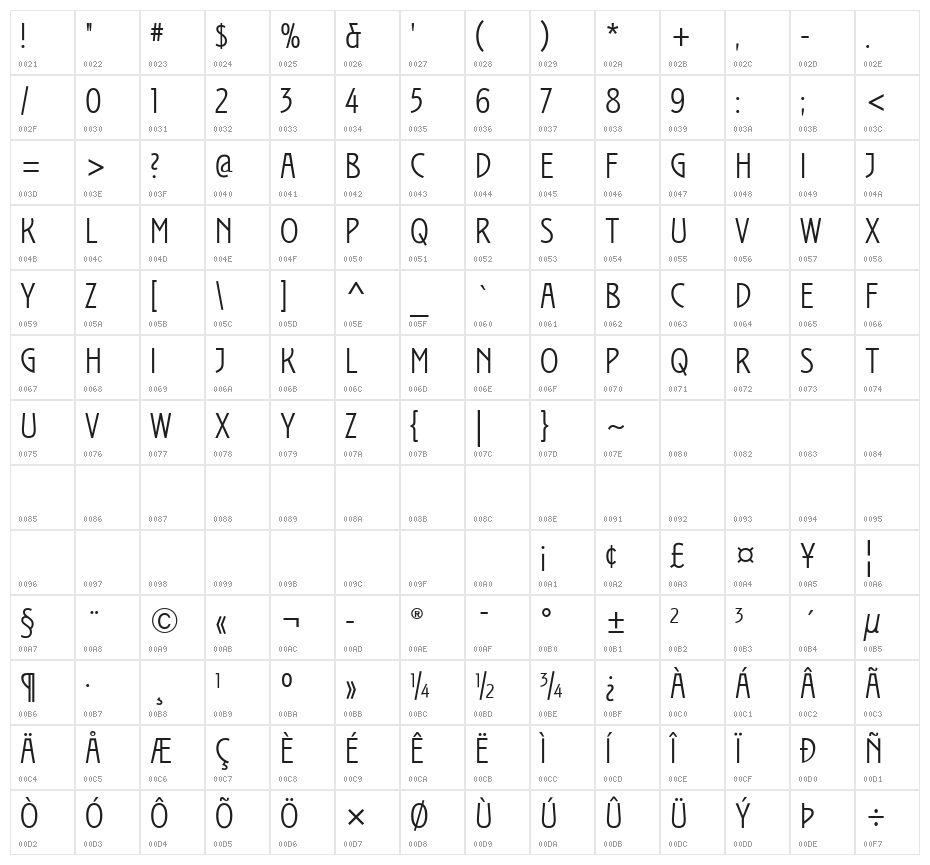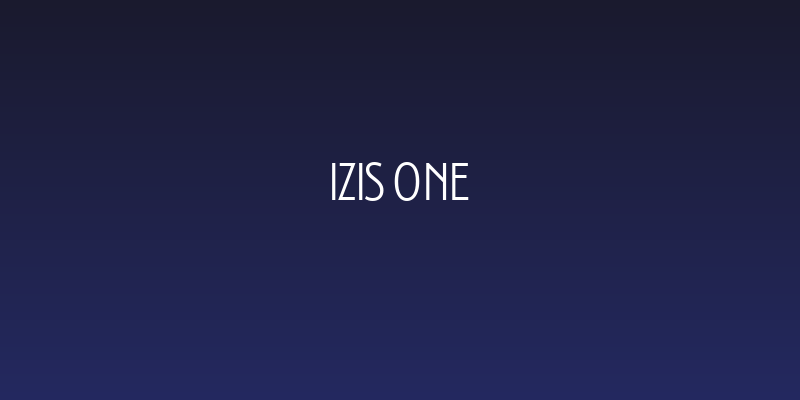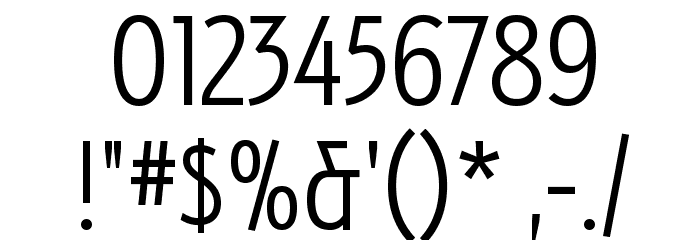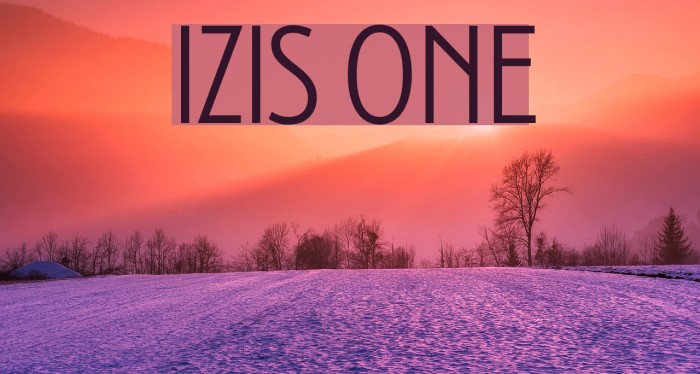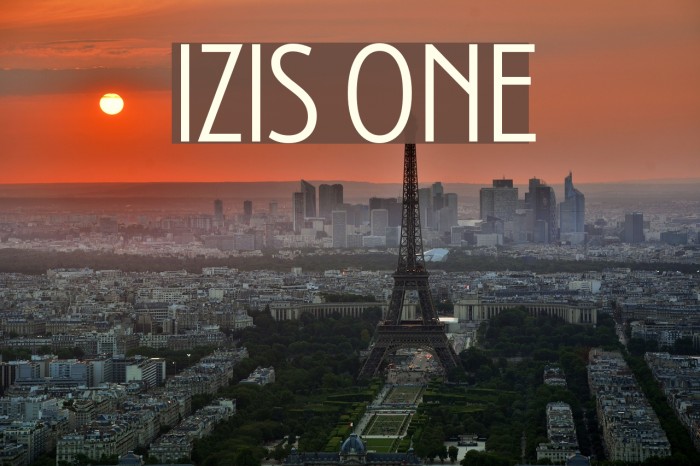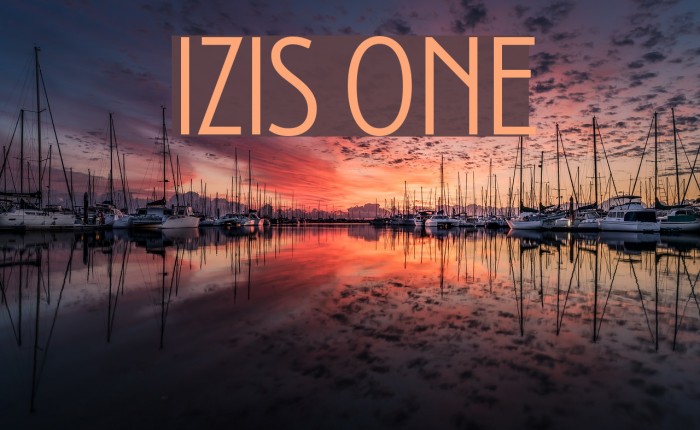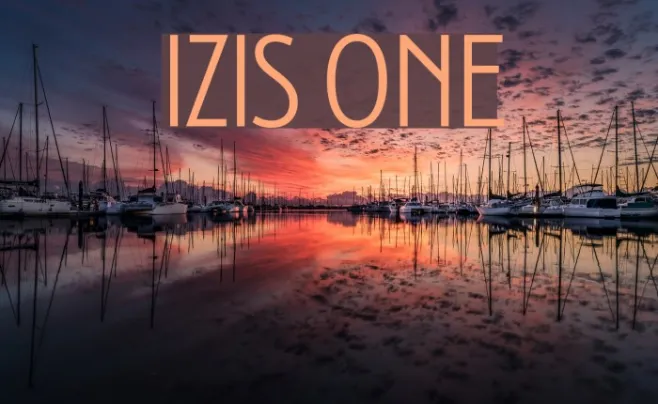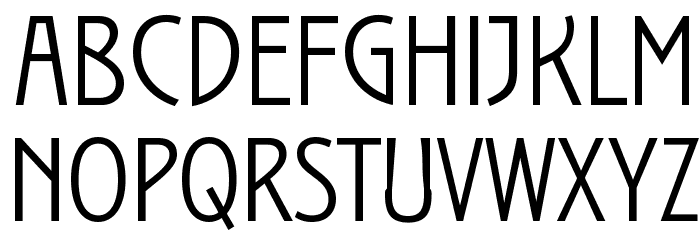
Izis One Font
Izis One Description
This font features a clean and modern sans-serif design with a geometric structure. The characters are tall and narrow, giving it an elegant and sophisticated appearance. The strokes are consistent in width, providing a uniform look across all characters. The uppercase letters are slightly taller than the lowercase, maintaining a balanced proportion. The numerals are clear and legible, matching the style of the alphabet. Special characters are included, maintaining the same design ethos. This font is versatile, suitable for both digital and print media.